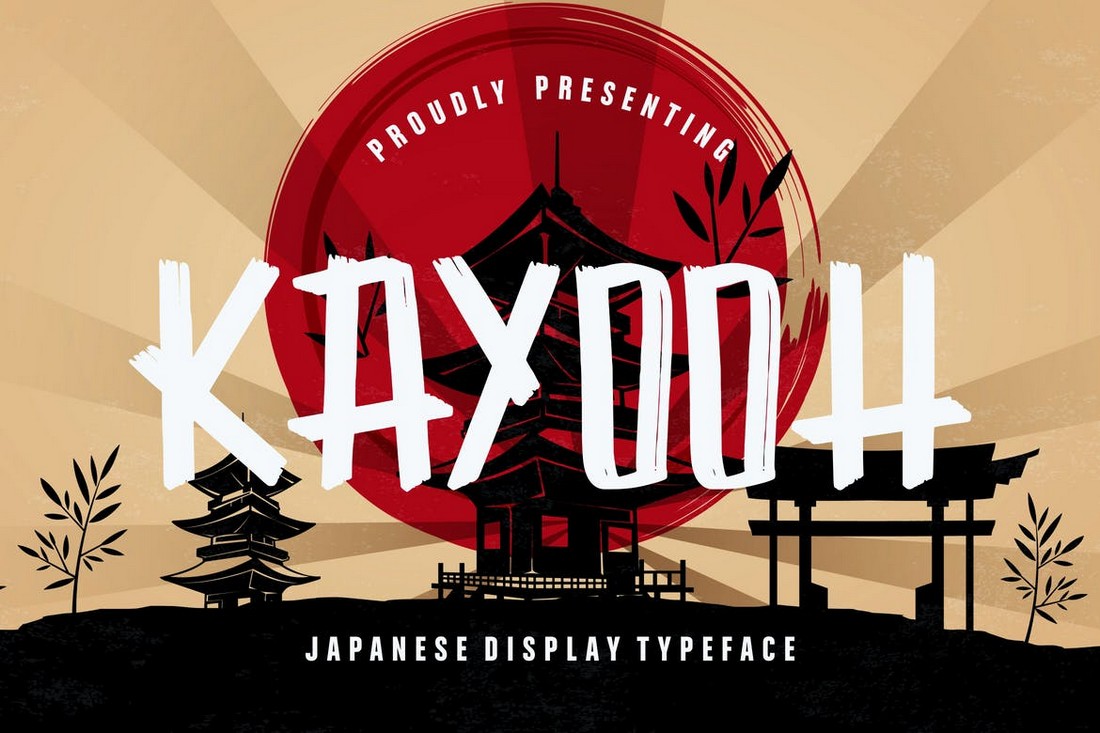
Kayooh – Japanese Display Font
If you’re looking for a display font with a Japanese-style letter design to create bold signage, banners, and posters, this font is made just for you. It features an attractive character design inspired by traditional Japanese typography. The font also includes a WebFont version along with lots of glyphs and ligatures.
Yakuza – Free Japanese Style Font
This is a free font you can download and use with your personal projects. It features a stylish and thin letter design that will look great on T-shirts, posters, and book covers.
Midorima – Free Japanese Font
The thick and creative brush letter design gives this font a natural look and feel mixed with a Japanese typography design. The font is also free to use with personal projects.
Hiroshima Gyoshi – Handwritten Japanese Font
This beautiful handwritten font comes with a letter design inspired by Japanese cursive typography. It has a clean flowing design that makes it perfect for all kinds of print and digital art from website headers to social media posts, posters, and greeting cards.
Boyaka – Japanese Brush Font
A Japanese-style brush font featuring a rough design. This font will definitely make your titles and text look as if they were drawn by hand. At first glance, you can see how this font would be the perfect choice for designing signage for a Japanese restaurant or even a fast-food menu.